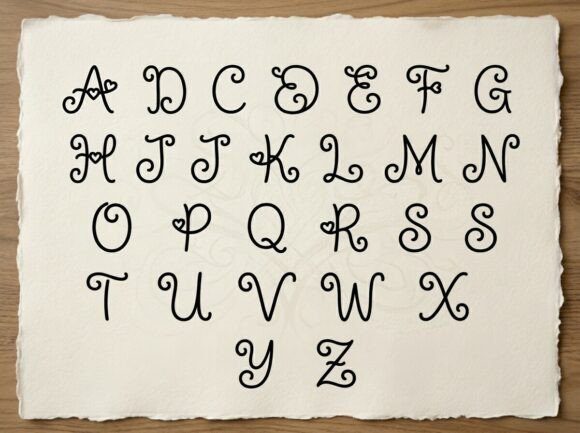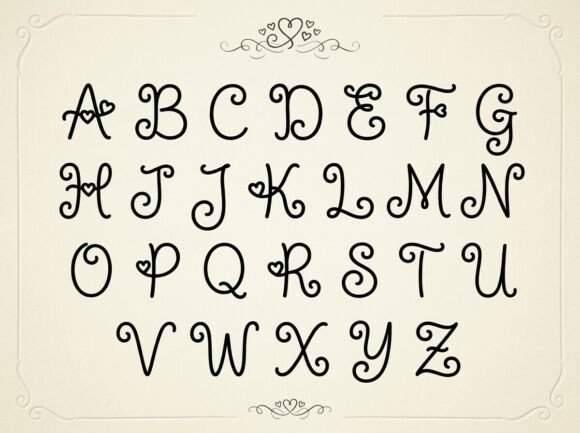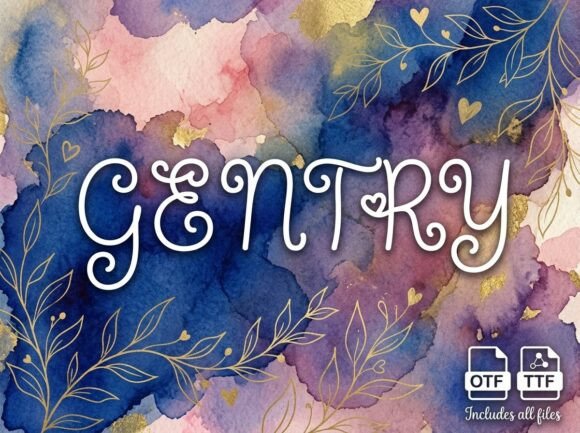
Introduction to Gentry Font
Have you ever stared at a blank canvas, trying to come up with the perfect idea for a creative project? The blank page can be intimidating, but what if you had the perfect tool to spark your imagination? The Gentry Font is a stunning decorative display font designed to make your work stand out from the crowd. Its unique artistic elements and strong visual personality are sure to capture attention and leave a lasting impression.
As a designer, you’re constantly on the lookout for high-quality design resources to elevate your work. The Gentry Font is a valuable addition to any design arsenal, offering a professional and polished finish that’s perfect for bold headlines, artistic logos, and creative packaging. With its transparent background, you can easily overlay it on any image or background, giving you endless creative possibilities.
Whether you’re a seasoned pro or just starting out, the Gentry Font is a must-have for any design project. So why settle for an ordinary font when you can have a font that’s truly extraordinary? Get ready to take your designs to the next level with the Gentry Font.
Gentry Font
- High-quality design resource featuring elegant and sophisticated typography.
- Comes with a transparent background, allowing for easy integration with any design or background.
- Features a unique, vintage-inspired aesthetic, making it perfect for projects requiring a touch of sophistication and elegance.
Honest Review: Gentry Font
I recently had the opportunity to try out the Gentry Font, and I’m excited to share my thoughts on this versatile design resource. The Gentry Font is a great addition to any creative project, offering a high-quality, elegant look that’s perfect for a wide range of applications.
- ✨ The high-quality design ensures that the font looks great on both light and dark backgrounds.
- ✨ The font is highly customizable, making it easy to adjust to suit your specific design needs.
- ✨ The transparent background option allows for seamless integration into any design project.
- ⚠️ The font may not be suitable for very large or complex designs, as it can become difficult to read at very small sizes.
- ⚠️ The font is not as bold or dramatic as some other options, which may not be ideal for designers looking for a more statement-making font.
Overall, I’m very impressed with the Gentry Font. Its elegant design, high-quality appearance, and transparent background make it an excellent choice for any creative project. While it may have a few limitations, it’s a solid addition to any design resource library.
Tips for Getting the Most Out of Gentry Font
To get the most out of the Gentry Font, use it in conjunction with a transparent background to create a clean and minimalist design. You can also experiment with different font sizes and styles to add emphasis to your text.
The Gentry Font is commonly used in design projects that require a high-quality, elegant font. It’s perfect for creating invitations, brochures, and other marketing materials that need a sophisticated touch.